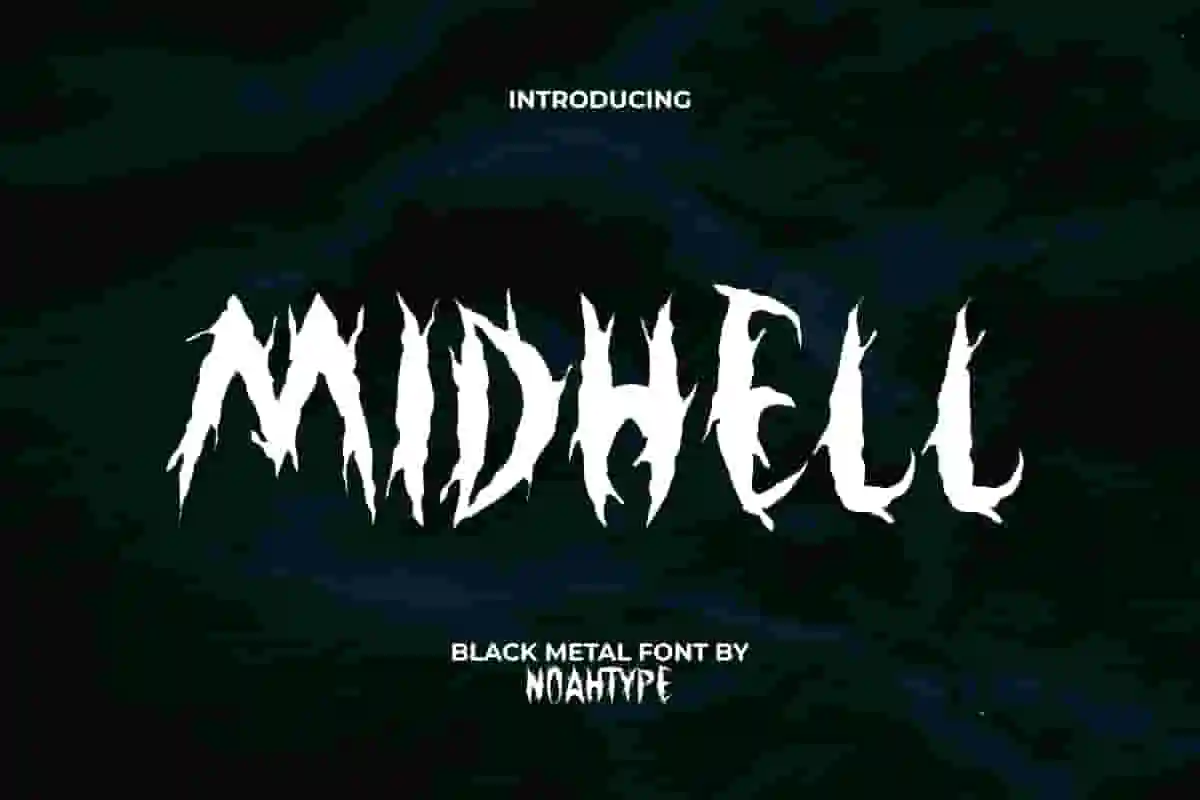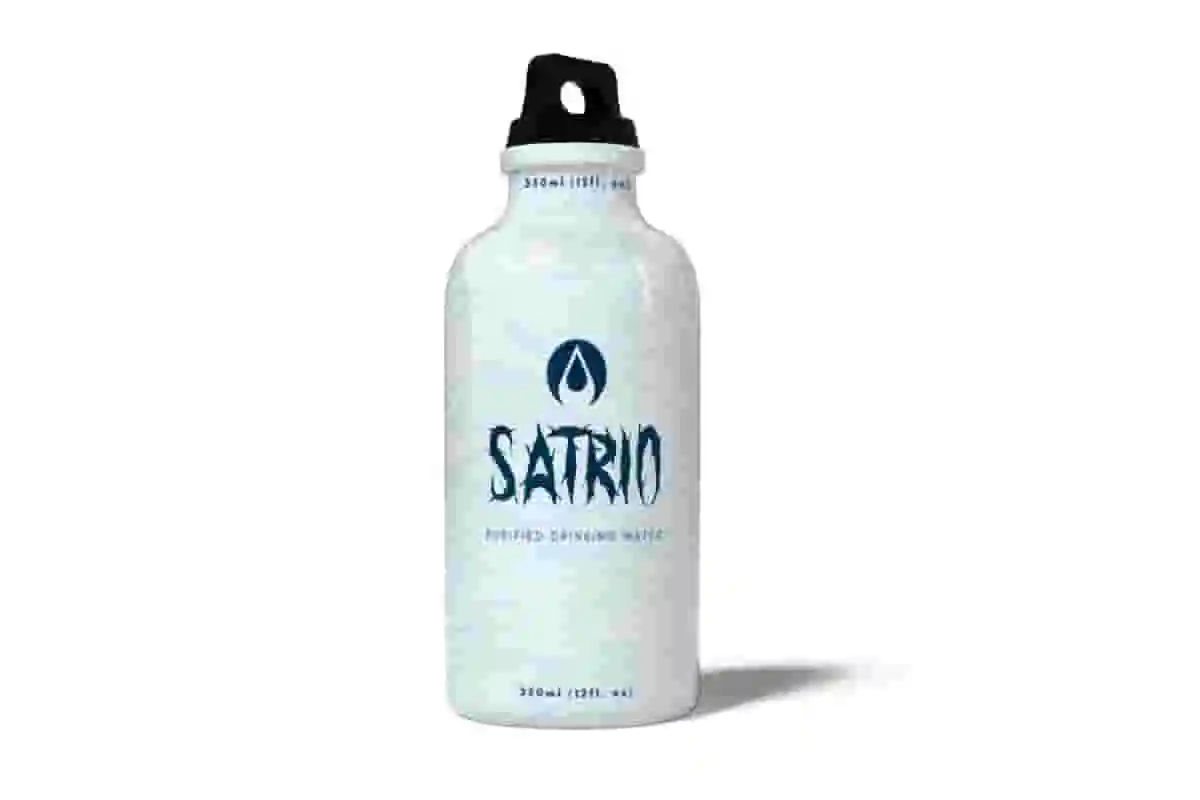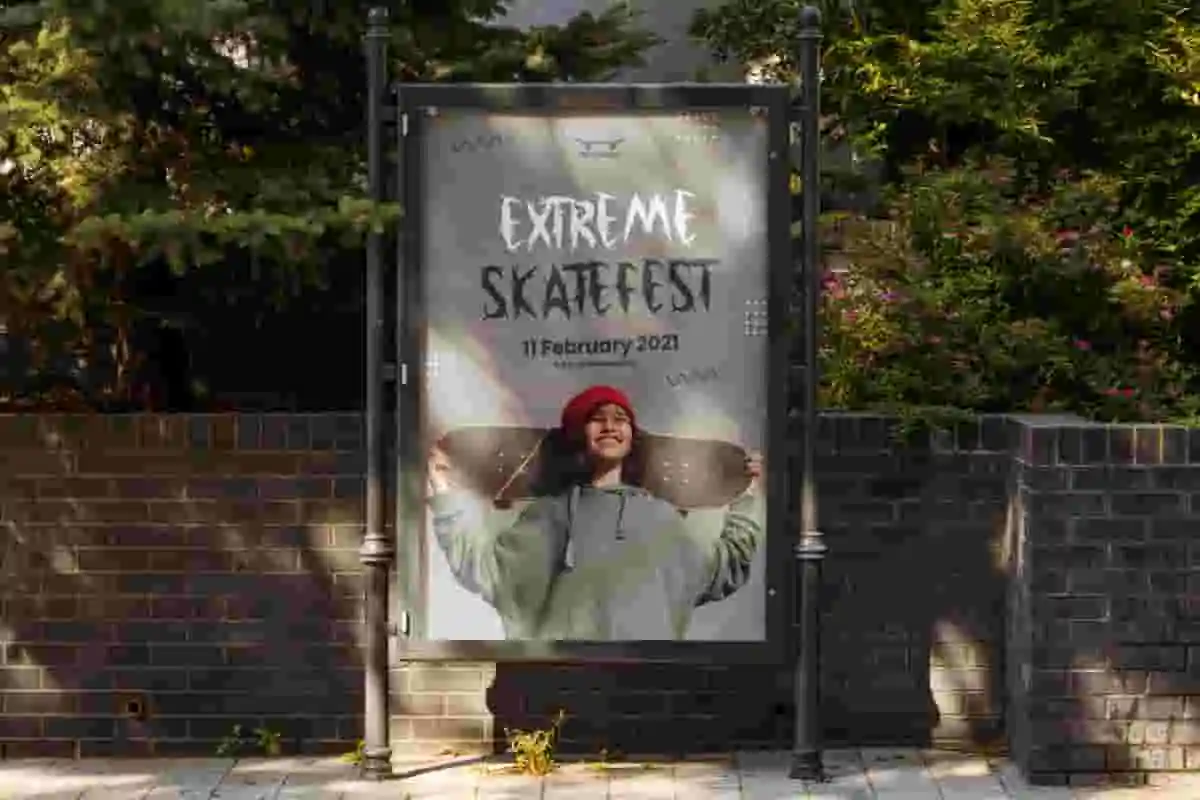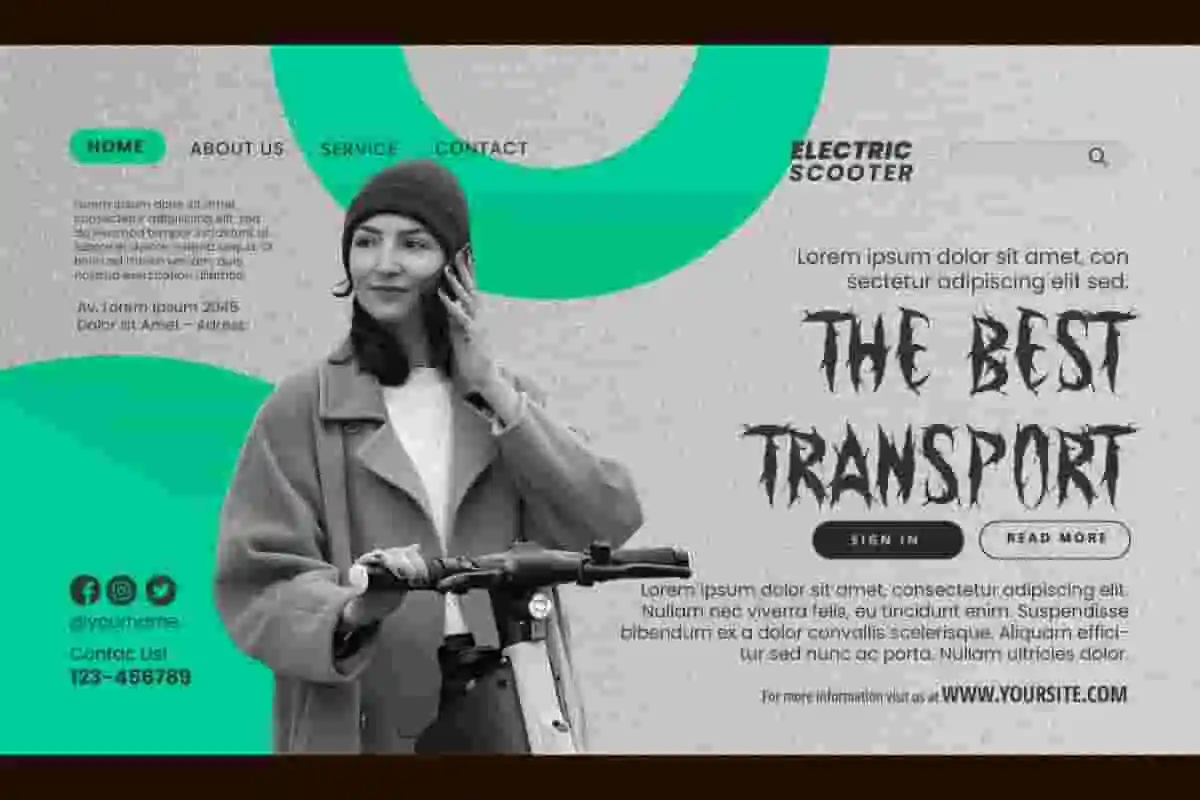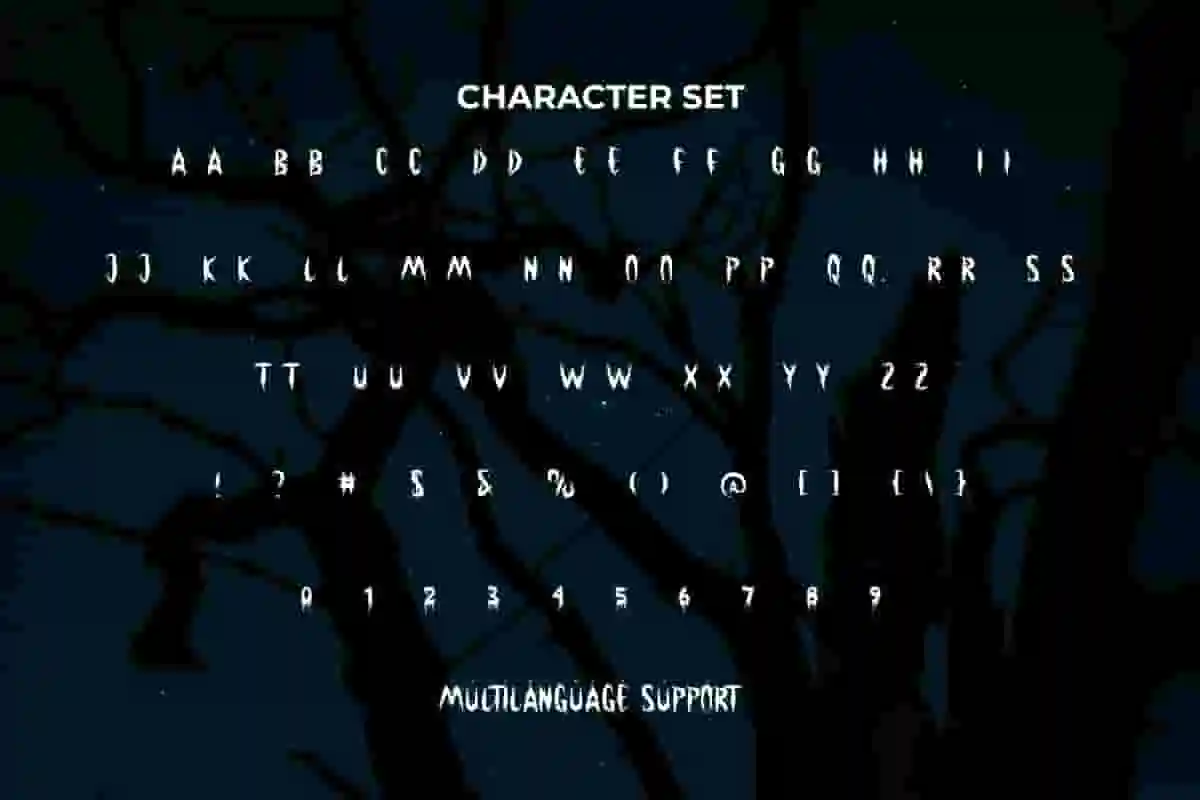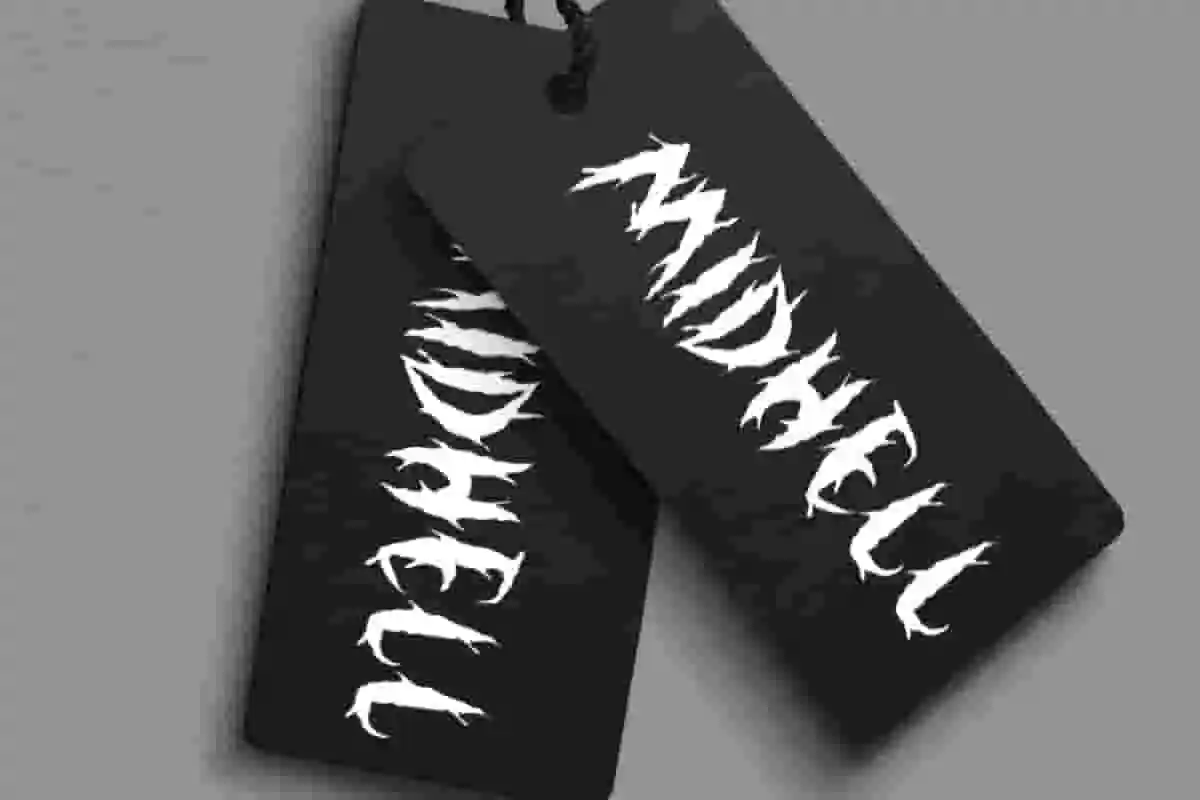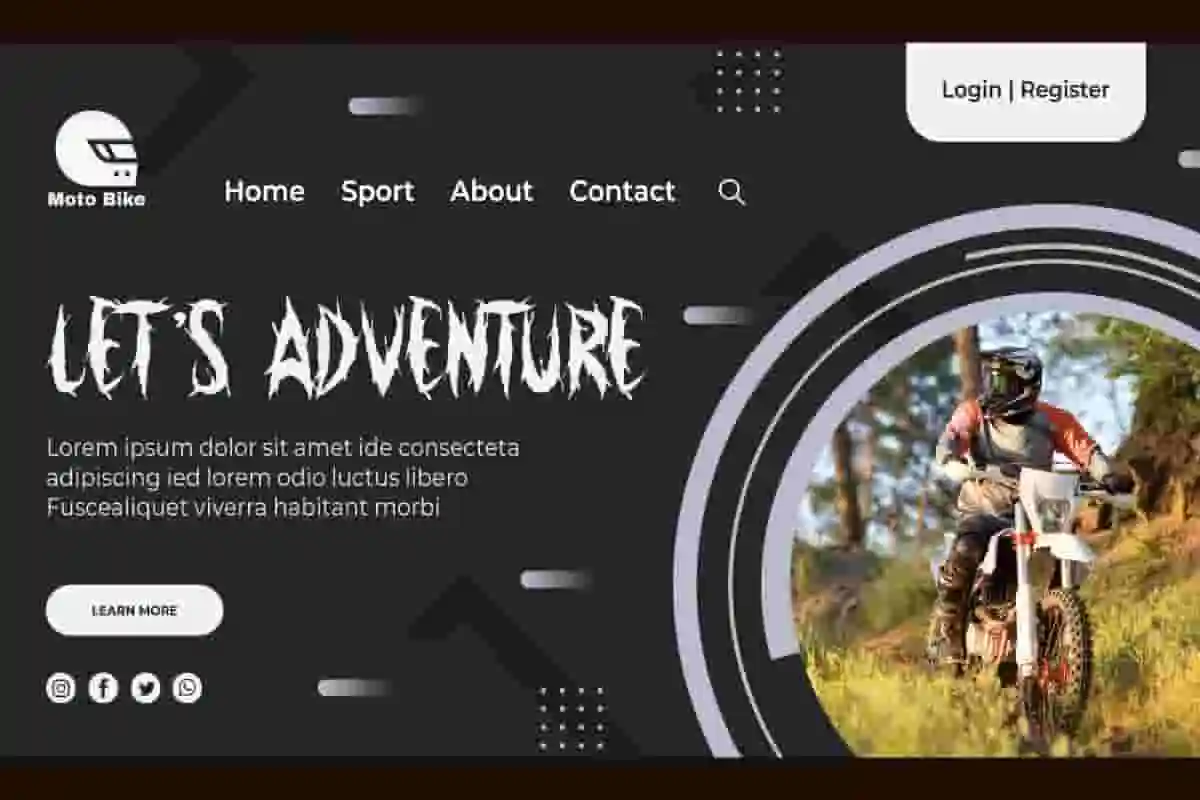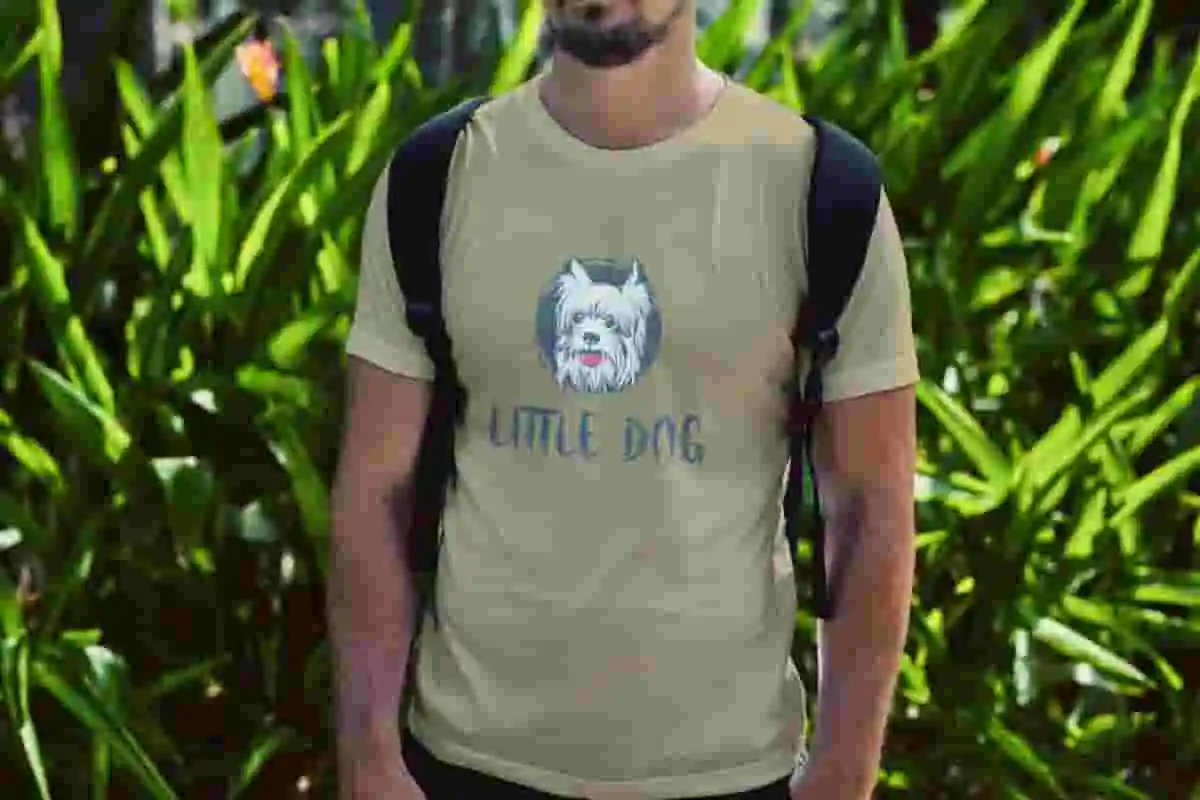
Midhell Font is a hardcore creepy textured horror Black Metal font by NoahType. This font has a scary appearance with sharp thorns along the characters. It will be awesome for any designs, such as custom design, brand image, poster, label, invitation, cover, marketing material, menu, printing, product packaging, quotes, signage, website, and many more!
Midhell Font includes full set of ALL CAPS for Uppercase and Lowercase Basic Characters, Numerals, Punctuation, and Symbol. This strong font will make your design cool and also a perfect choice for many industries, such as game, movie, comic, music, accessories, advertising, art, café, event or festival, fashion, printing, publishing, etc.